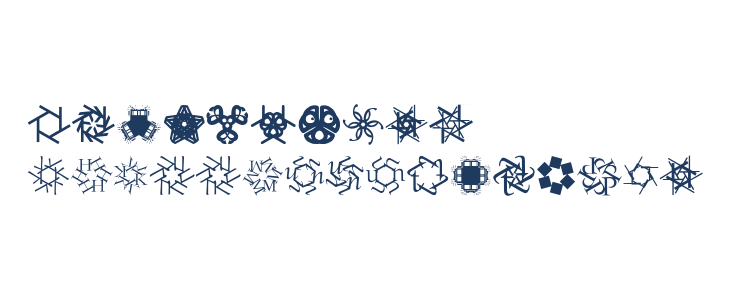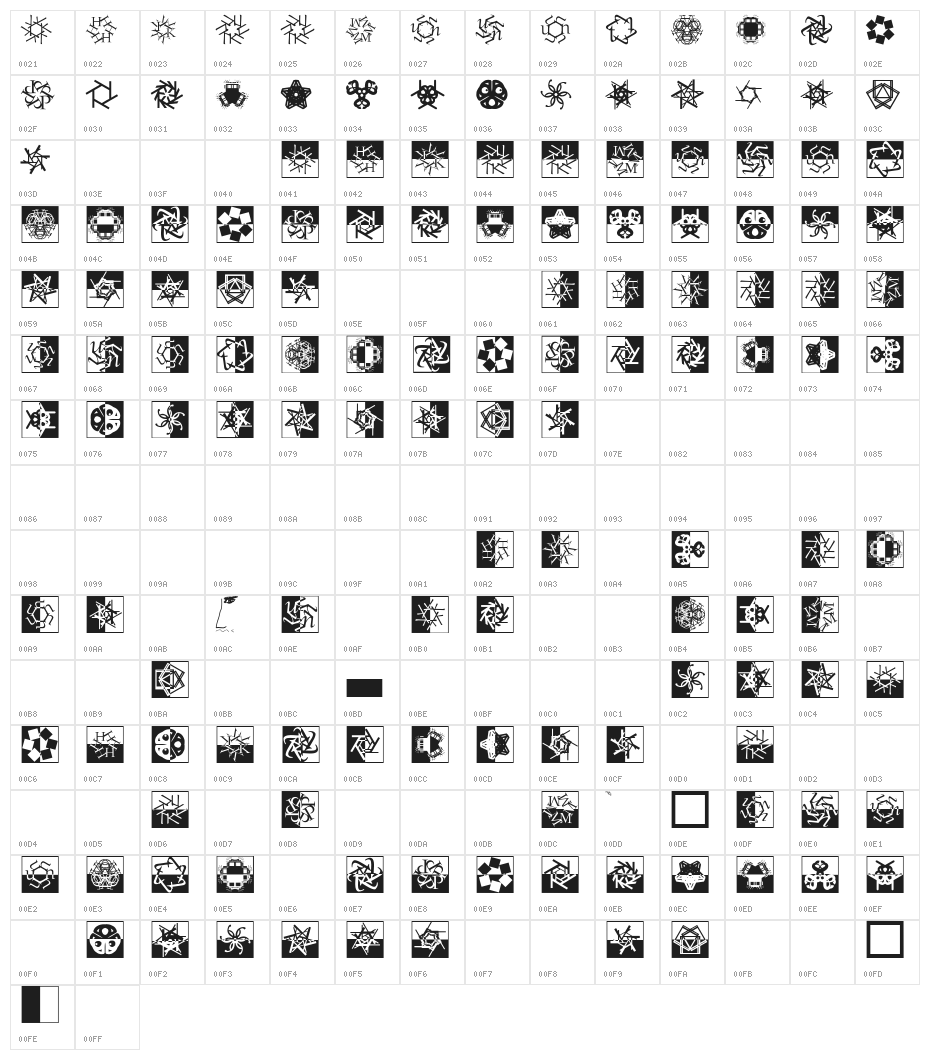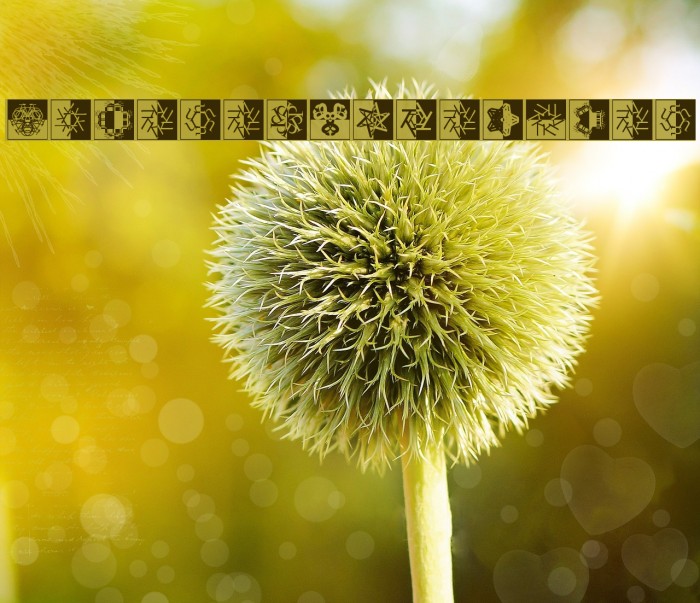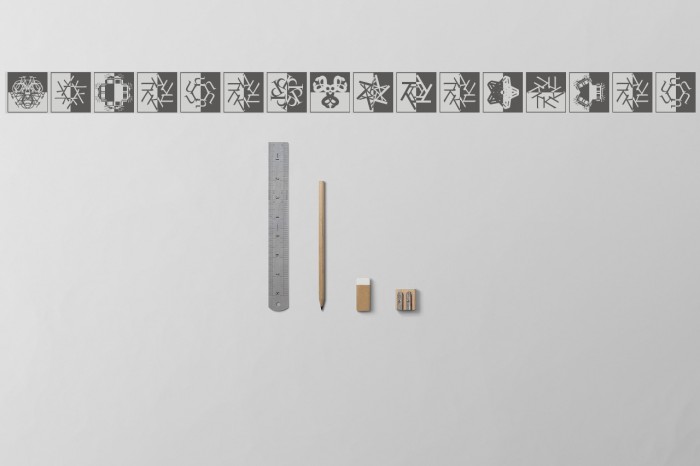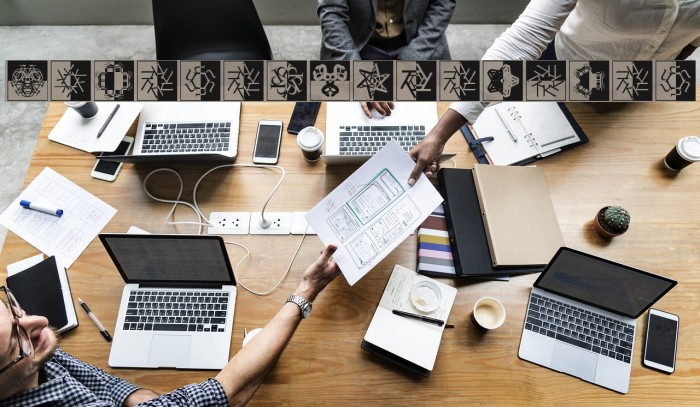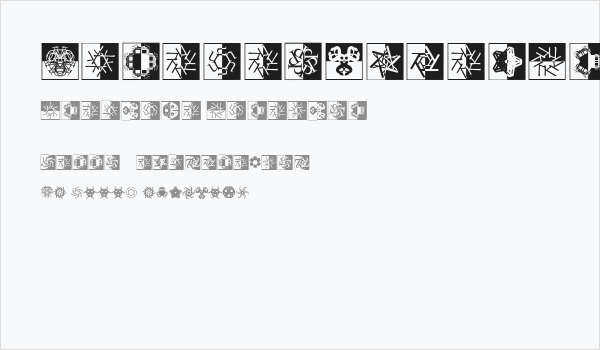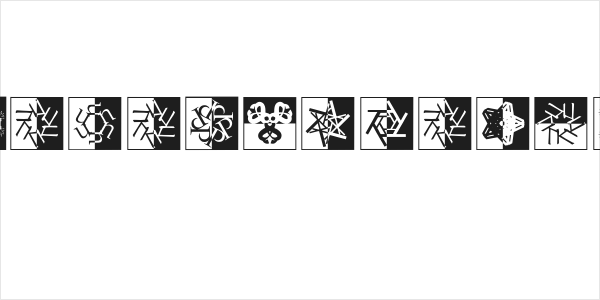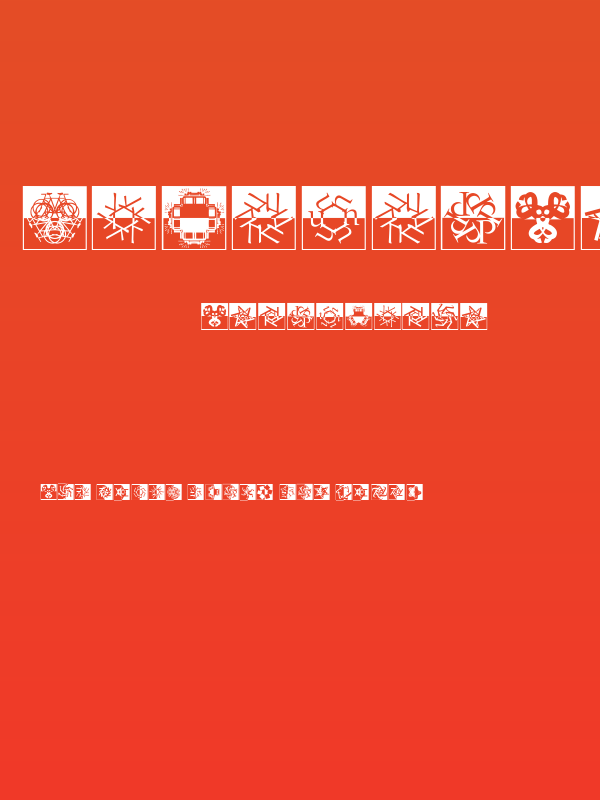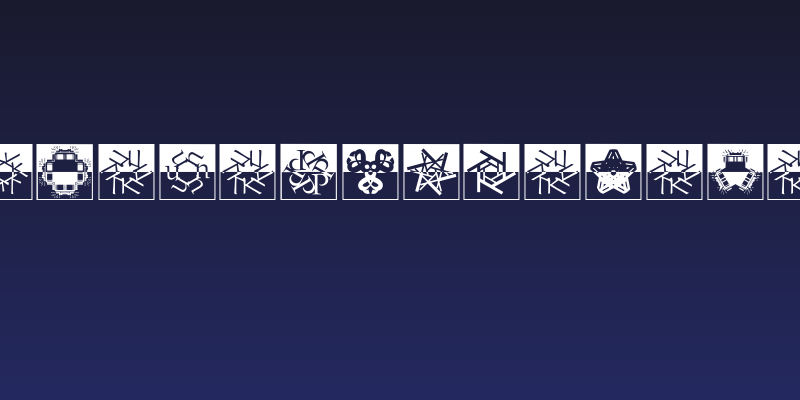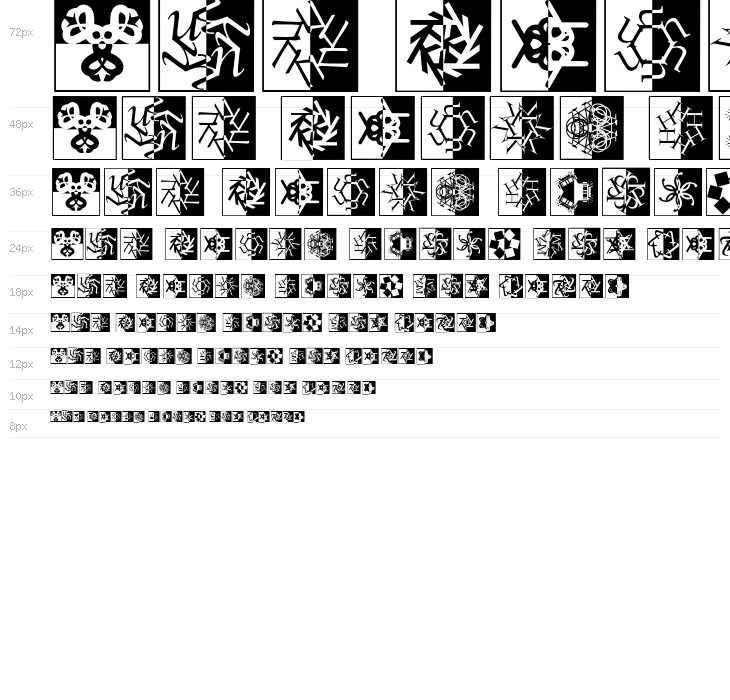
KaleidoTypesDrei Font
KaleidoTypesDrei Description
This design is a collection of intricate, kaleidoscope-like symbols rather than a traditional font. Each character is represented by a unique geometric pattern, combining elements of symmetry and complexity. The designs are highly decorative, featuring a mix of angular and curved lines that create a dynamic visual effect. These symbols are more akin to artistic motifs or logos than readable text, making them suitable for creative and decorative applications. The overall aesthetic is bold and eye-catching, with a strong emphasis on visual impact and artistic expression.
| Use Case | Logos, Decorative artwork |
| Proposed Projects | Ideal for creative projects such as logos, decorative artwork, or unique branding elements. |